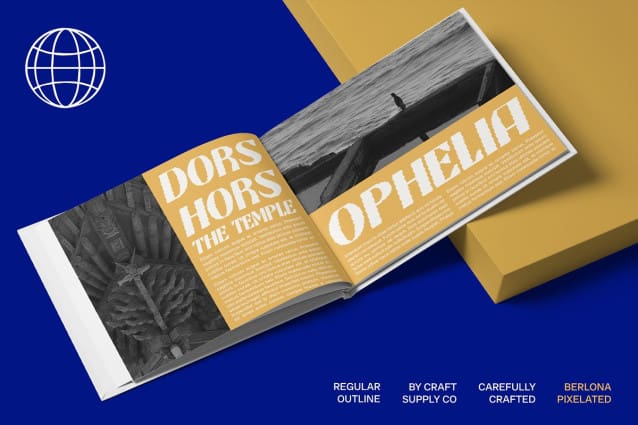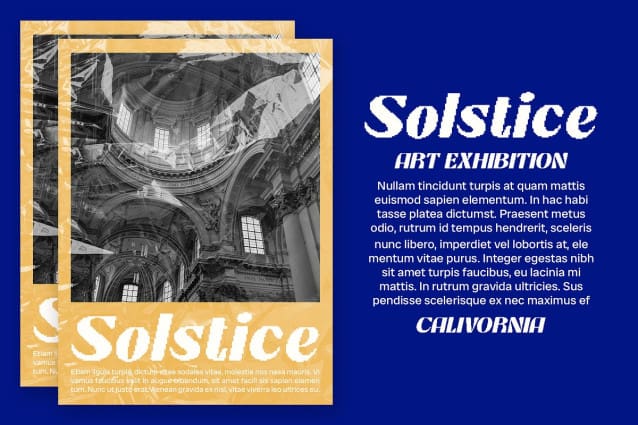
Berlona Pixel Font
Berlona Pixel Font is a bold sans-serif font that combines a retro classic feel with a pixel effect, merging modern style with nostalgic vibes. Its thick, strong letterforms ensure a bold and readable appearance, making it ideal for impactful designs that need to capture attention.
Nostalgic Pixel Effect The pixel effect adds a distinctive retro touch, reminiscent of early computer graphics and vintage video games. This element brings a sense of nostalgia, evoking the charm of classic digital displays while maintaining a contemporary edge.
Ideal for Retro-Inspired Designs Berlona Pixel creates a unique and engaging look, making it perfect for designs that require a nostalgic and powerful visual impact. Whether used for vintage posters, retro logos, or promotional materials, this font highlights retro character with a strong, memorable presence, ideal for projects aiming to celebrate and evoke the past.